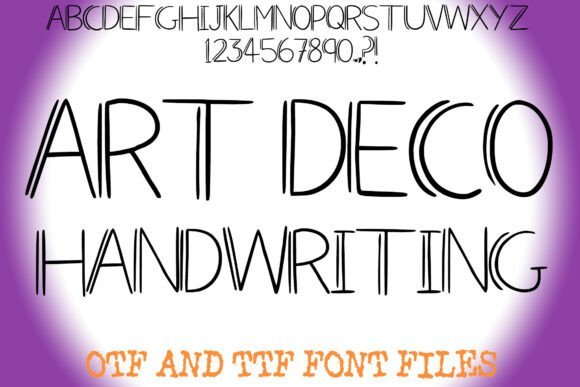
Introduction to Art Deco Handwriting Font
Step into a world of β€œGatsby-meets-Journaling” with Art Deco Handwriting Font.
This unique typeface blends the architectural elegance of the 1920s with a modern, hand-drawn sensibility The defining feature of this font is its stylized double-line vertical strokes, which add an instant touch of luxury and geometric flair to a clean, sans-serif base.
Key Features of Art Deco Handwriting Font
Why Choose Art Deco Handwriting Font?